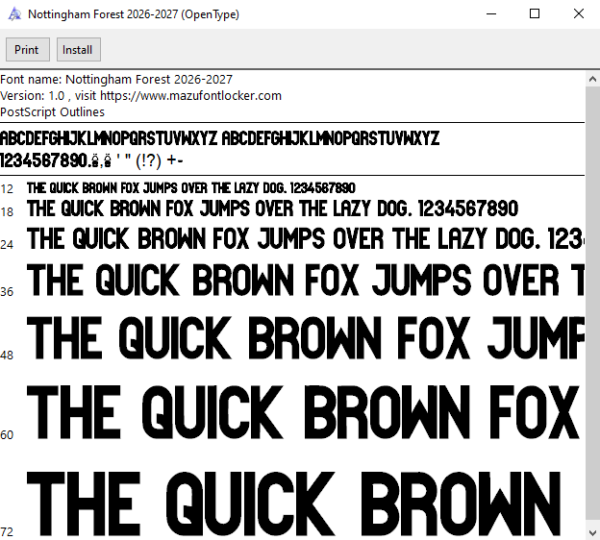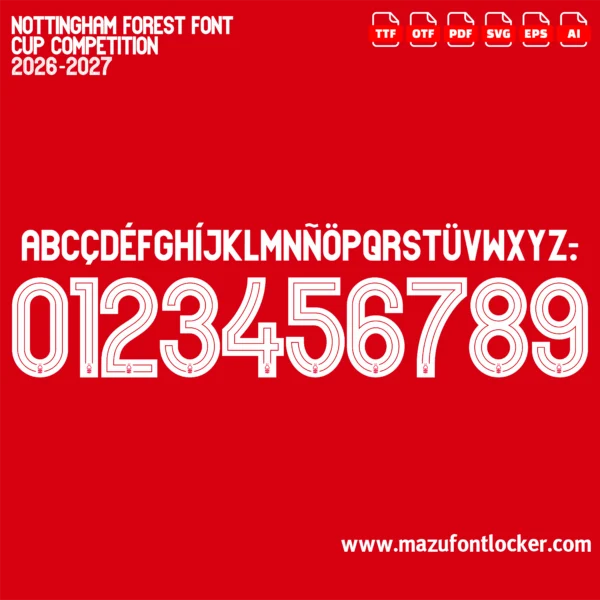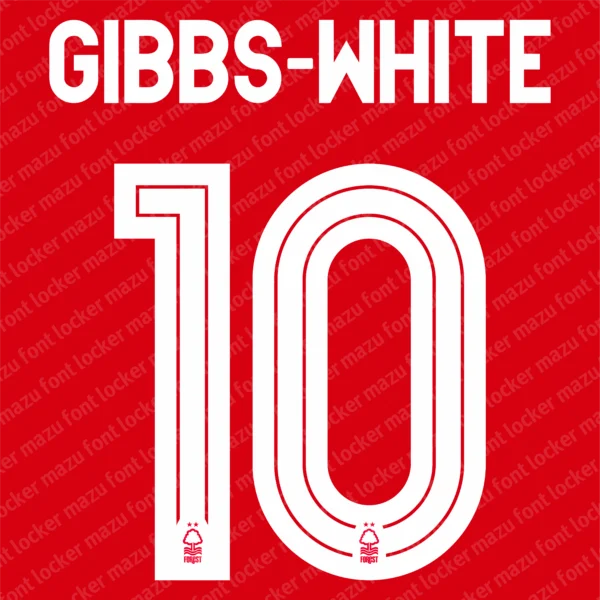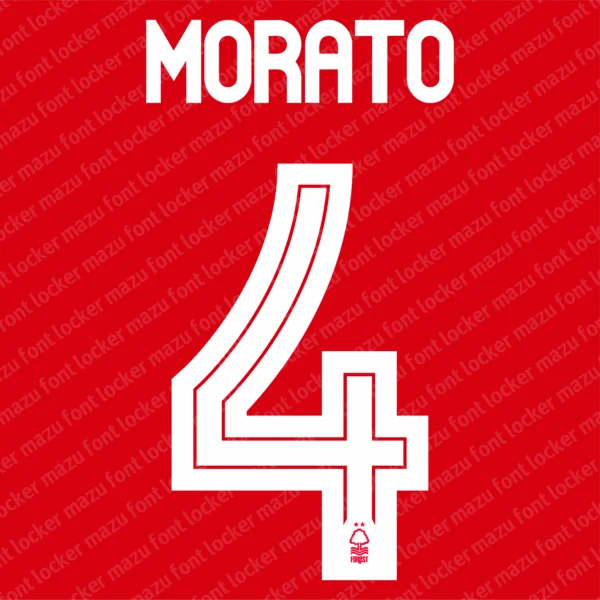
Nottingham Forest 2026-2027 Font Vector – Epic Tricky Trees Masterpiece
This font captures the commanding, crimson-edged, lightning-strike, and precision-engineered lettering that perfectly embodies Nottingham Forest’s iconic club identity, proud Nottingham heritage, legendary red-and-white tradition, iron-willed spirit, and unstoppable English football power — delivering unmatched authenticity, premium quality, explosive energy, and elite Premier League & UEFA competition intensity for professional jersey mockups, dynamic football graphics, premium sports branding, passionate fan creations, and high-end design projects.
Nottingham Forest 2026-2027 Font Vector – Stunning Reds Red & White Typeface
The Nottingham Forest 2026-2027 Font Vector is a premium typeface that accurately recreates the distinctive match lettering associated with Nottingham Forest Football Club during the 2026-2027 football season. This high-quality vector font kit captures the bold, clean, and instantly recognizable typography that perfectly complements the club’s iconic red and white identity.
Designed for professional designers, football enthusiasts, jersey collectors, and passionate Nottingham Forest supporters, the Nottingham Forest 2026-2027 Font Vector delivers exceptional authenticity for creating realistic jersey mockups, football merchandise, social media graphics, match posters, squad designs, and custom fan artwork. Every character has been carefully recreated to reflect the powerful and precise visual style of one of England’s most historic and successful football clubs.
Why Choose Nottingham Forest 2026-2027 Font Vector
This font stands out thanks to its precise vector construction and authentic club-inspired styling. Every letter and numeral has been meticulously recreated to match the distinctive football lettering aesthetic associated with Nottingham Forest during the 2026-2027 season and its domestic and European campaigns.
Whether you’re producing professional football kit templates, custom jersey concepts, or eye-catching football content, the Nottingham Forest 2026-2027 Font Vector delivers a genuine match-ready appearance inspired by the identity of the Reds.
The lettering featured in the Nottingham Forest 2026-2027 Font Vector combines clean geometric lines with bold modern proportions. The result is a premium and highly readable typeface that reflects Nottingham Forest’s proud football heritage, iconic red and white colors, East Midlands identity, and passionate global fanbase.
• Complete uppercase A–Z alphabet and numbers 0–9 in authentic Nottingham Forest 2026-2027 inspired style
The Nottingham Forest 2026-2027 Font Vector is inspired by the distinctive football typography and visual identity associated with this campaign, making it an excellent choice for designers creating custom jersey concepts, football posters, squad graphics, matchday artwork, and fan-made projects. For official club information, news, team updates, fixtures, and match information, visit the official Nottingham Forest website.
The Nottingham Forest 2026-2027 Font Vector is an independently designed typeface package inspired by the official shirt lettering and visual identity associated with Nottingham Forest during the 2026-2027 football season. It has been carefully recreated for football enthusiasts, graphic designers, collectors, jersey creators, and fans producing custom football concepts, digital artwork, and fan-made projects. Please note that this is a fan-made design resource and is not an official product of Nottingham Forest Football Club, the Premier League, UEFA, or any associated organization.